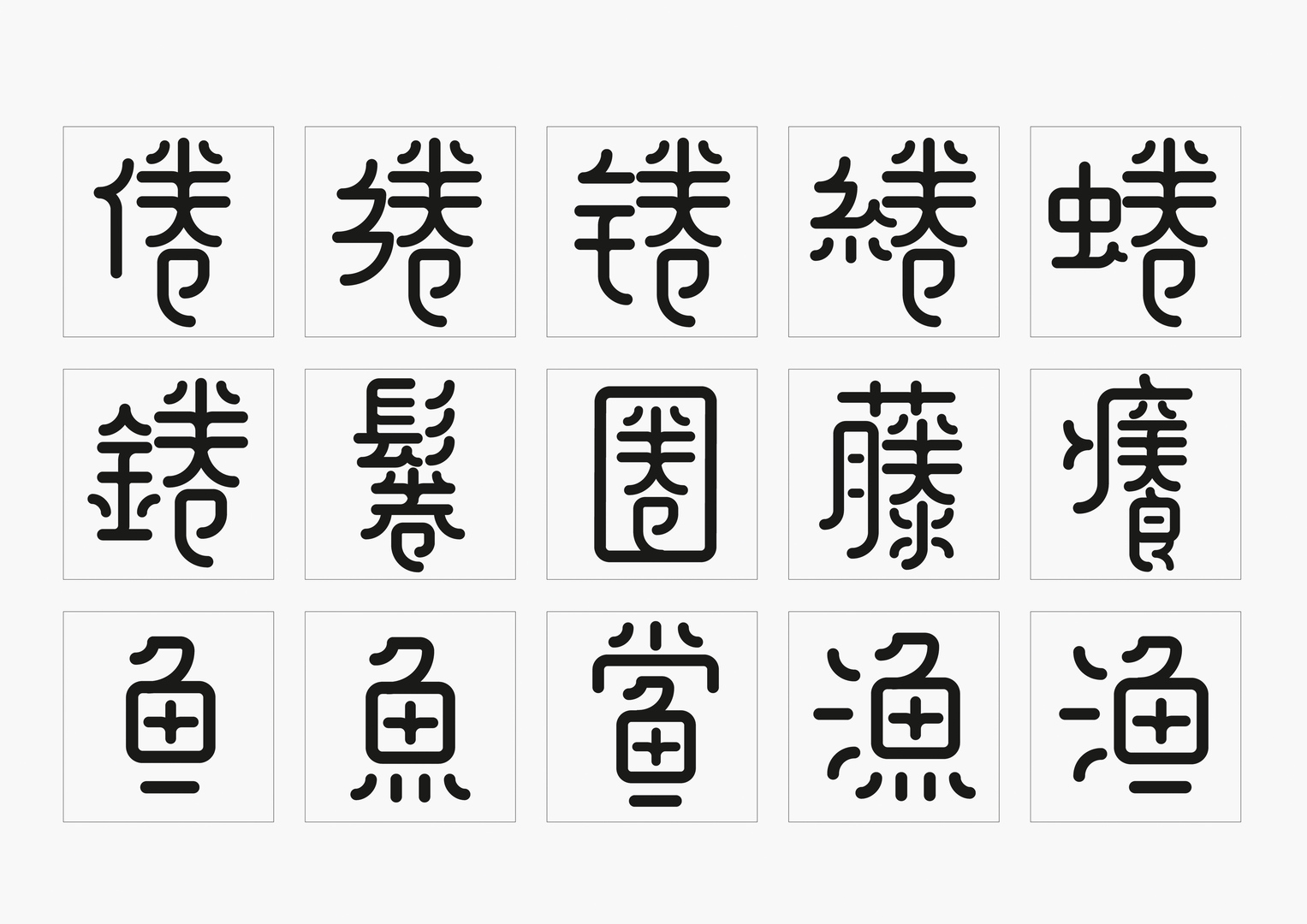
New Crescent Font
Chinese characters have their roots in pictography and calligraphy, which is all about artistic handwriting and personal style. The New Crescent font has reverted to ancient Chinese ideographic script by incorporating design techniques of Western fonts. As a result, the typeface authentically expresses the value of traditional symbols, while at the same time satisfying modern aesthetic demands through its functional, even stroke width and its fresh appeal.